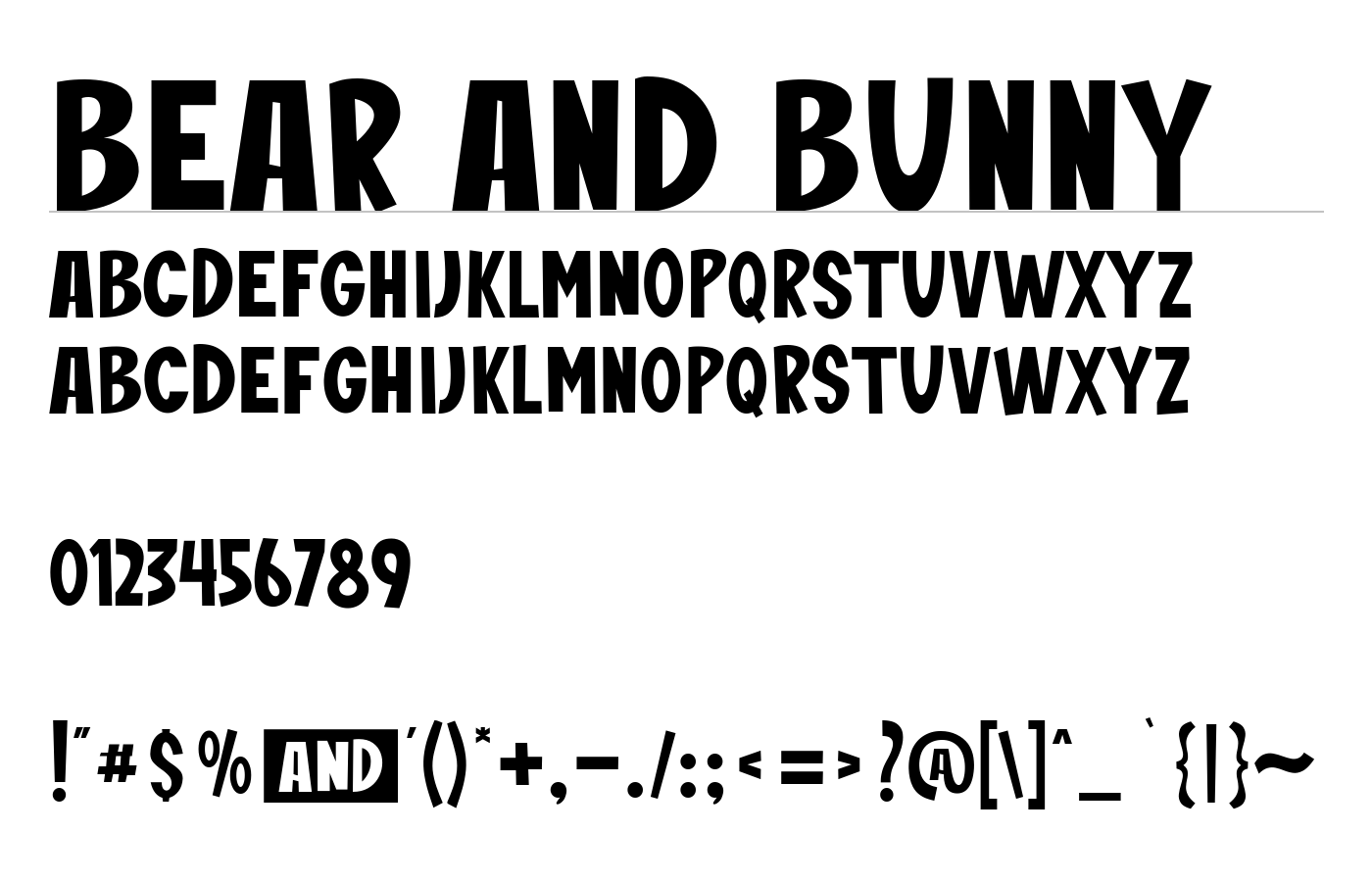
Bear And Bunny is a playful sans serif font with a tall, slightly condensed structure and quirky, uneven letter shapes that give it a fun and casual feel. Its bold weight and friendly curves make it ideal for children’s products, informal branding, and eye-catching headlines where a lighthearted, approachable mood is desired. This font works well in designs that want to communicate creativity and cheerfulness without sacrificing readability.
Bear And Bunny Font
About Bear And Bunny Font
| Font family | Bear And Bunny Font |